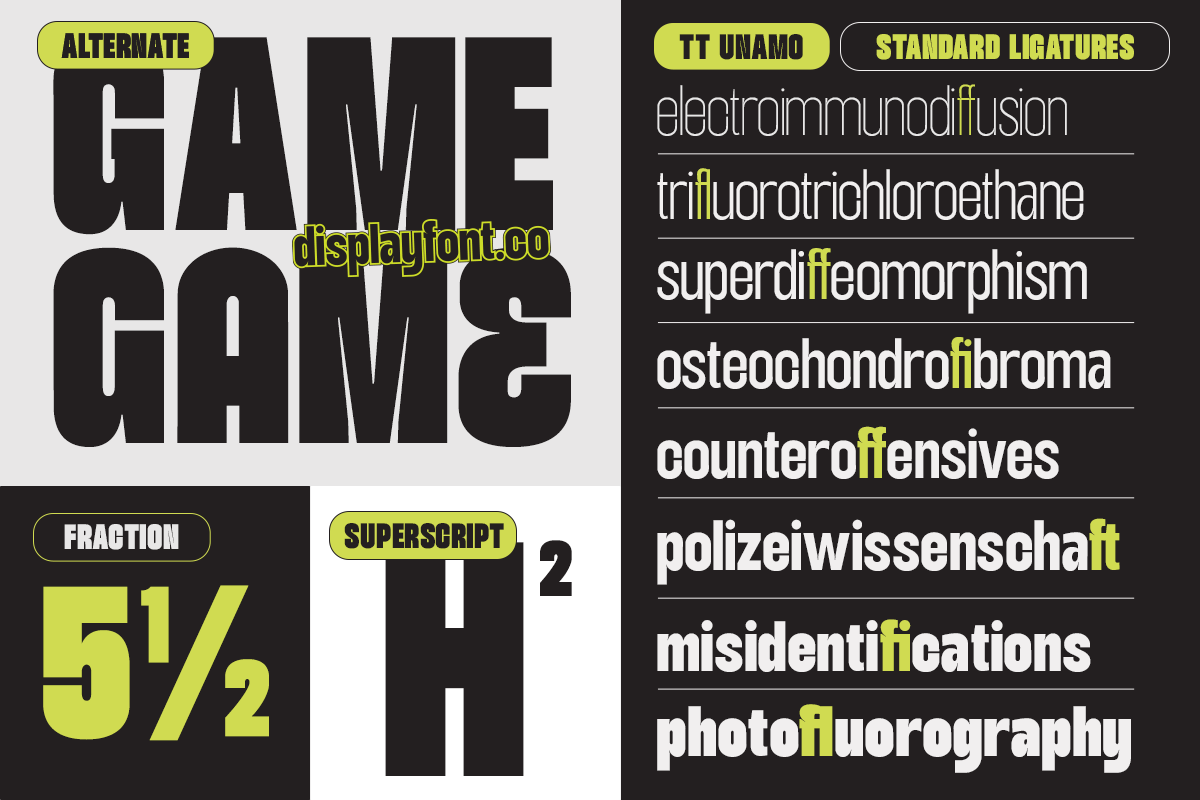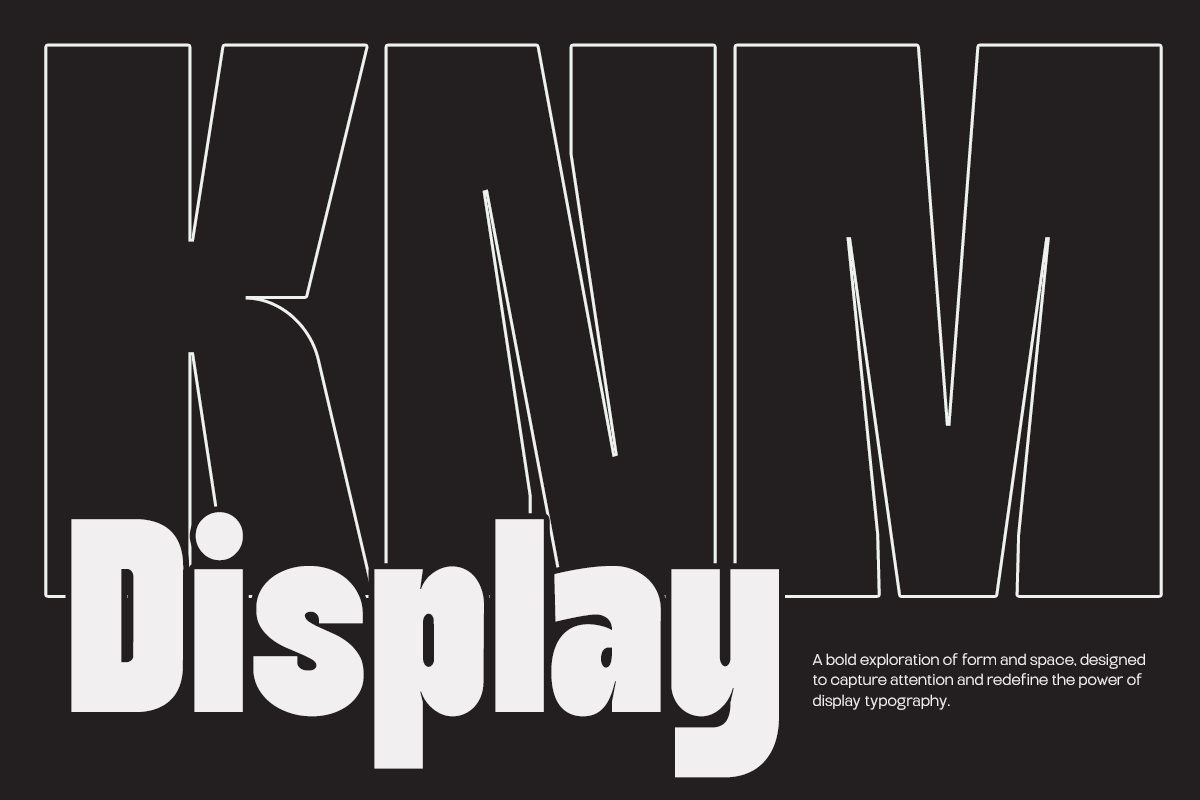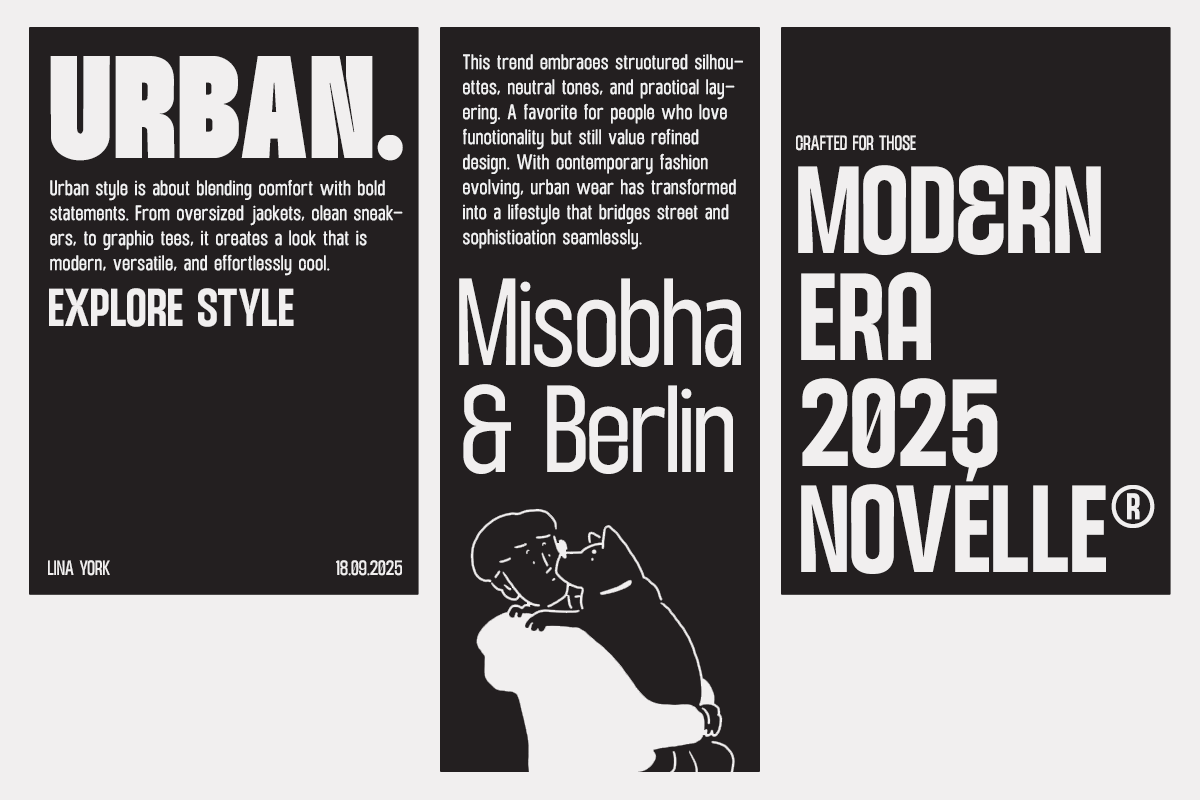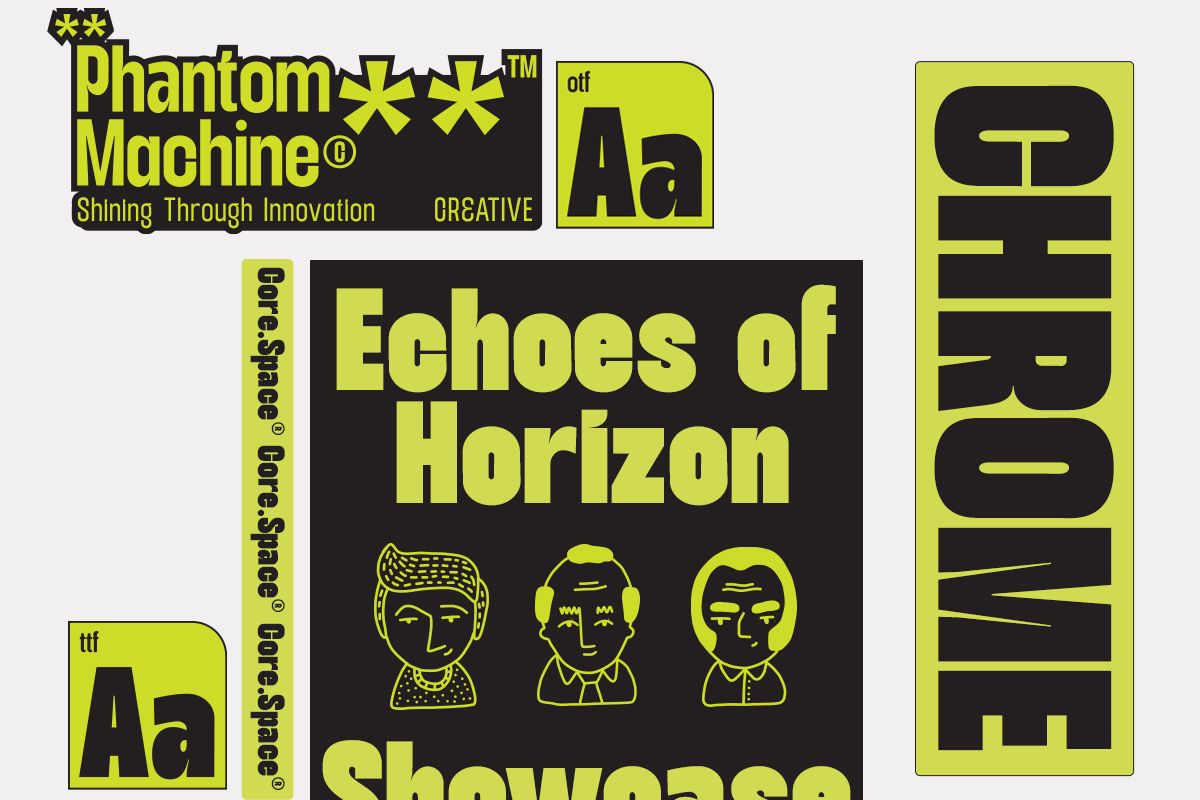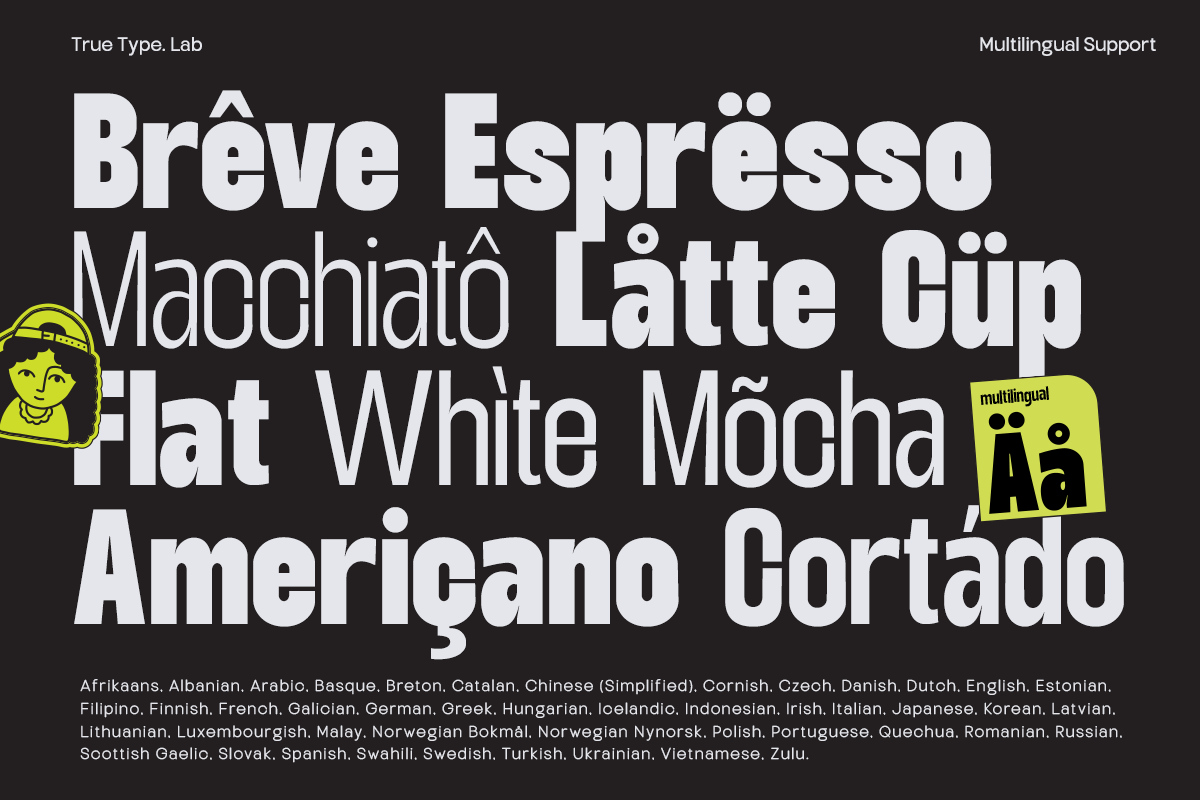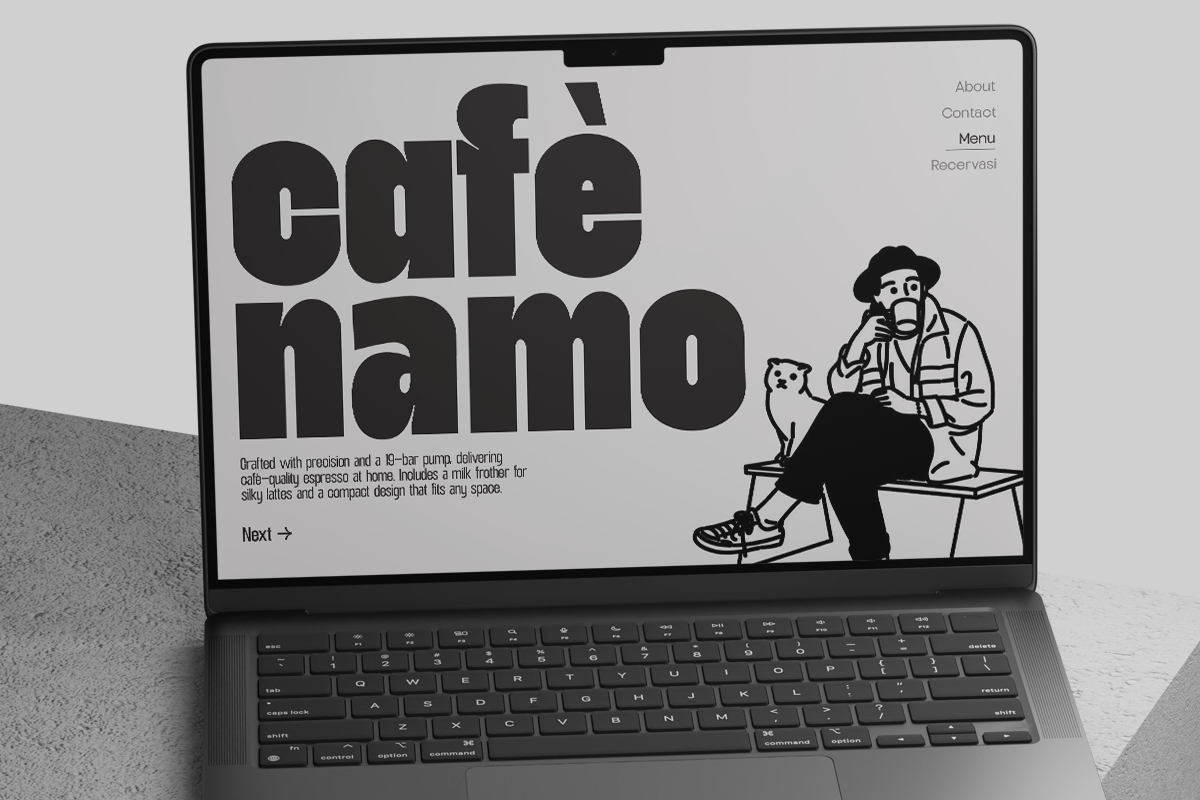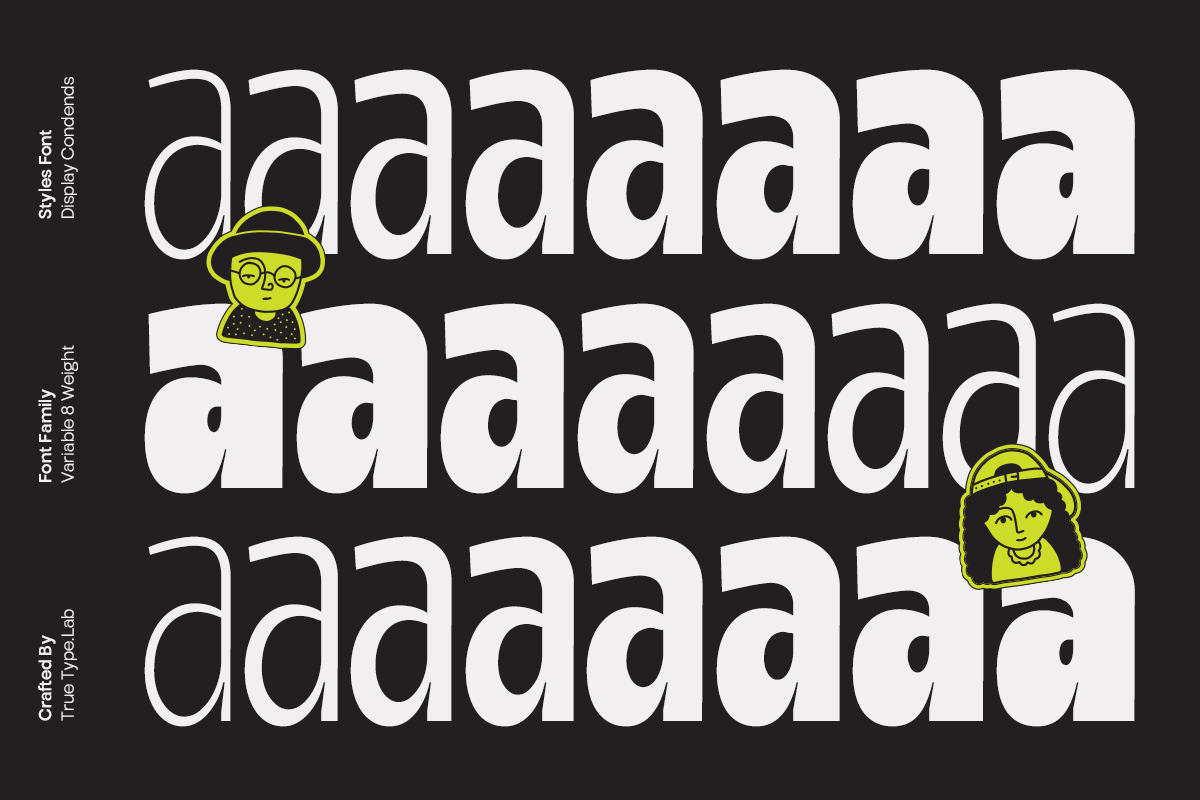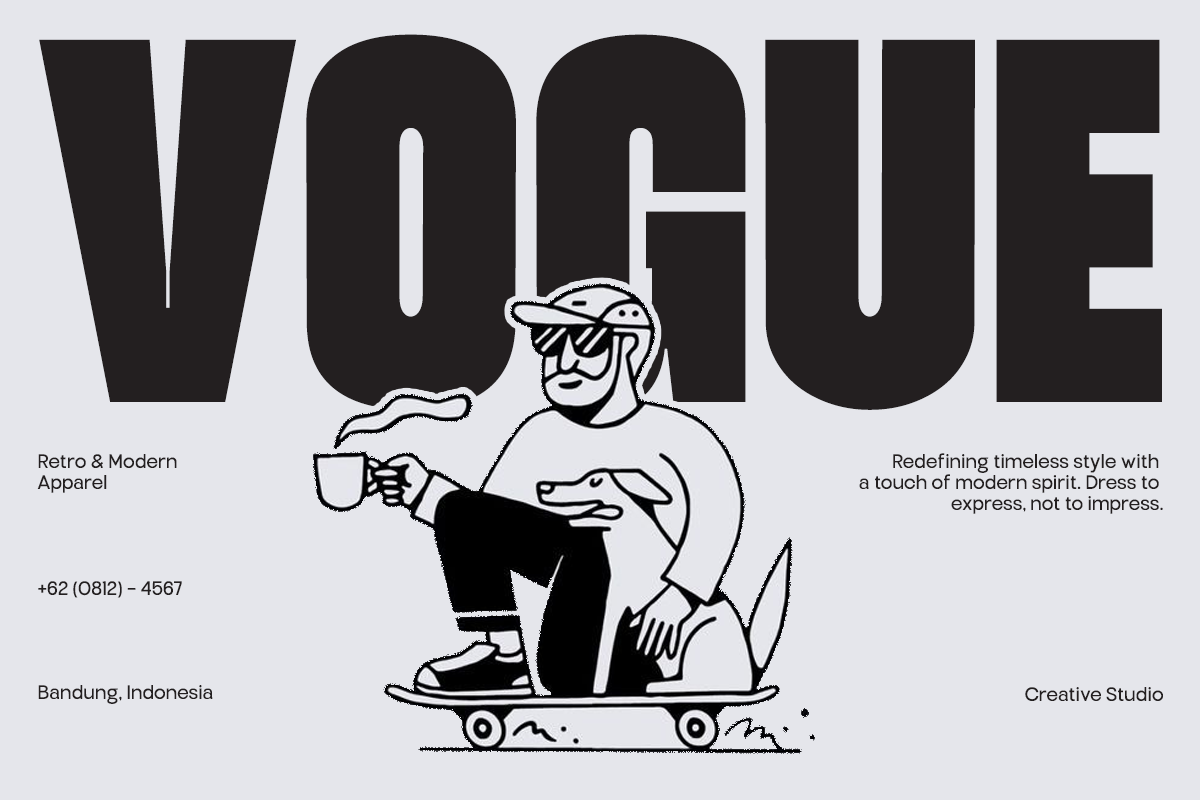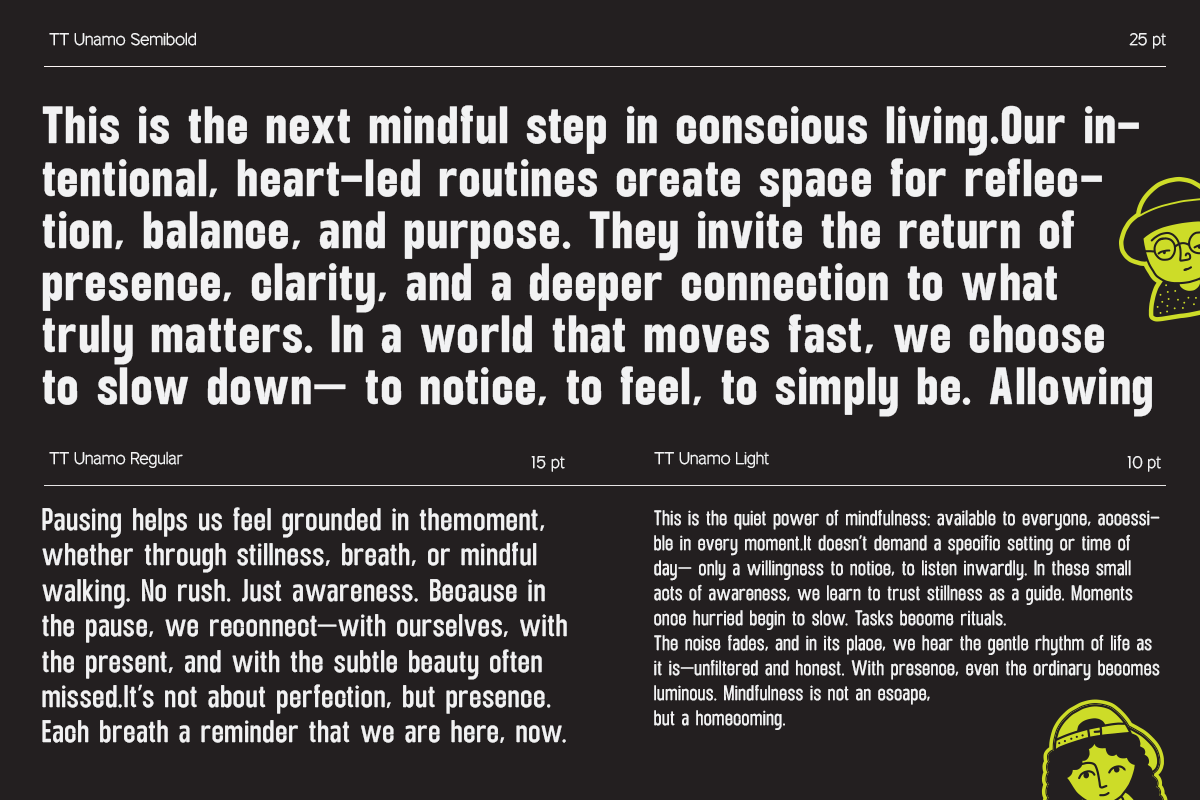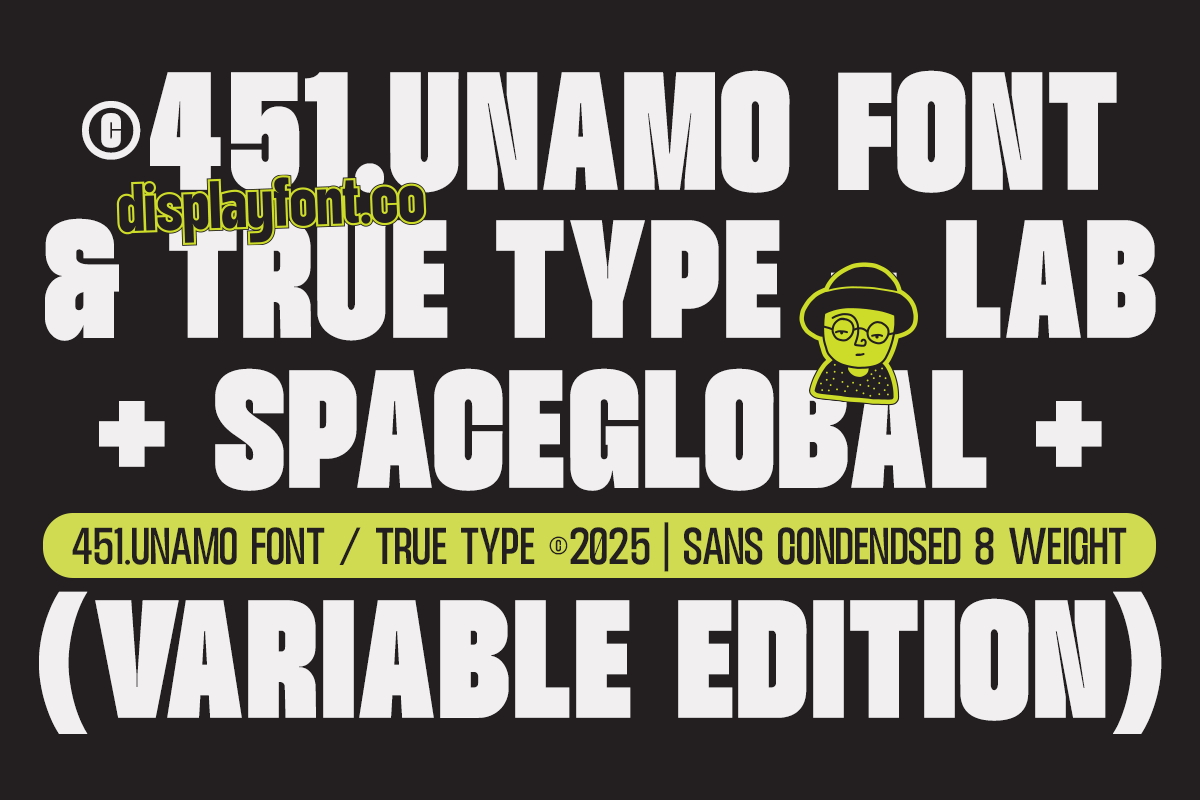
TT Unamo - Sans Display Condensed
TT Unamo is a bold and modern display sans condensed font family designed to command attention and deliver messages with precision. With its clean lines, narrow proportions, and strong geometric foundation, it’s perfect for projects that demand impactful typography without sacrificing clarity.
Engineered for versatility, TT Unamo excels in posters, headlines, editorial titles, branding, packaging, and digital interfaces. Its condensed structure allows more text in limited spaces while maintaining excellent legibility and visual balance.
TT Unamo offers a refined yet assertive personality, making it ideal for contemporary brands, sports campaigns, fashion editorials, and dynamic presentations. Whether you need a confident headline or a stylish typographic element, TT Unamo ensures your message stands out.